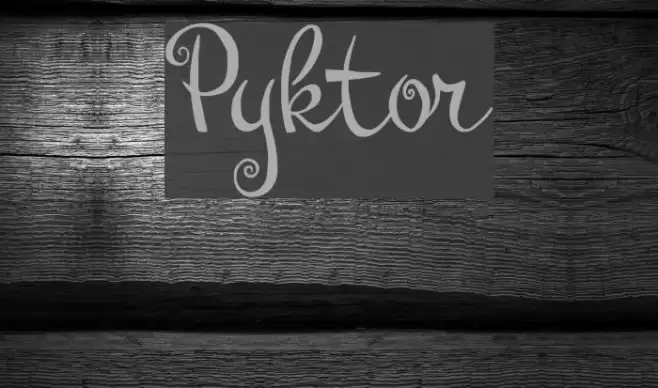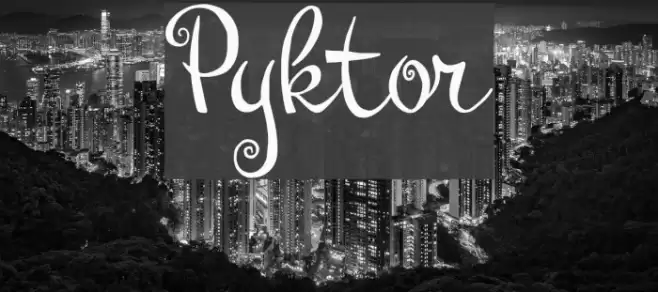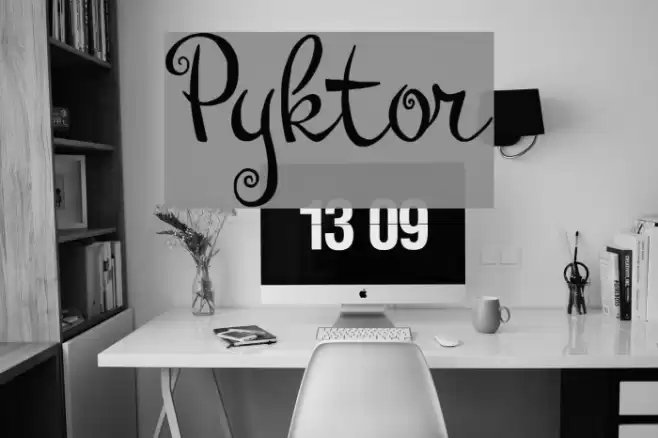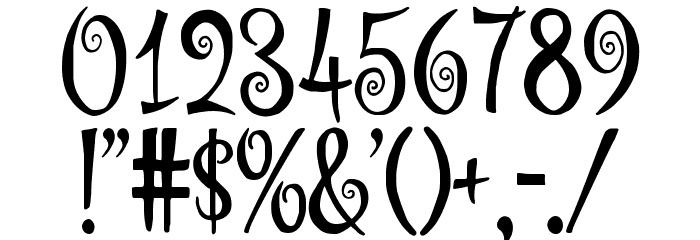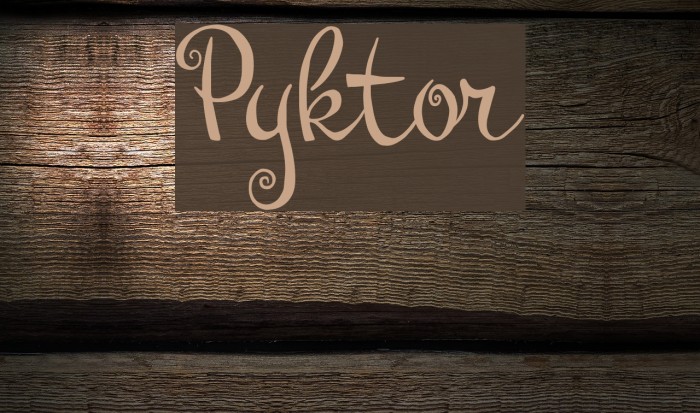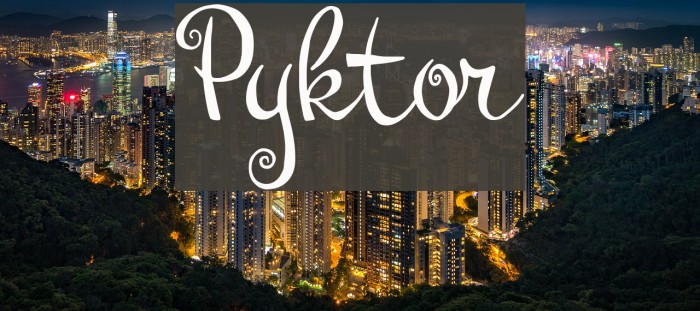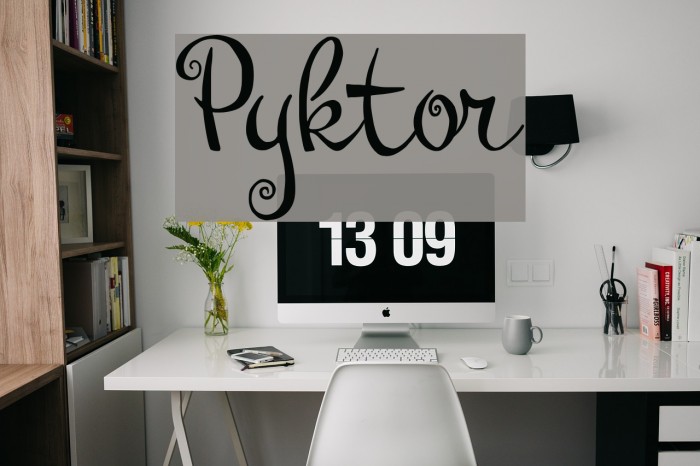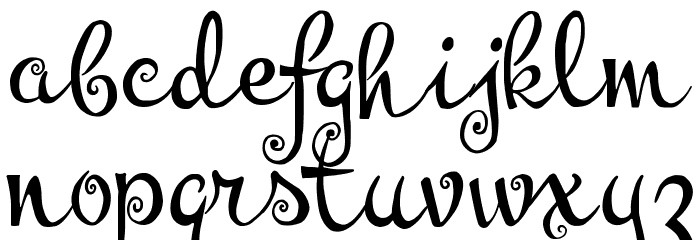
Pyktor Font
Pyktor Description
This font exhibits a playful and whimsical style, characterized by its curly and decorative elements. The uppercase letters feature unique swirls and loops, giving them a lively and dynamic appearance. The lowercase letters maintain this playful aesthetic with additional flourishes, creating a cohesive and charming look. The numerals are equally decorative, with some digits incorporating spiral motifs. Special characters are designed with the same attention to detail, ensuring consistency across the entire typeface. This font's distinctive style makes it ideal for projects that require a touch of fun and creativity.
A playful and whimsical font with curly, decorative elements from Uncategorized fonts.
- Proposed Projects: Ideal for children's books, greeting cards, playful branding, and creative invitations.
- Overall Style: Whimsical, Playful, Decorative
- Use Case: Headlines, Logos, Creative projects